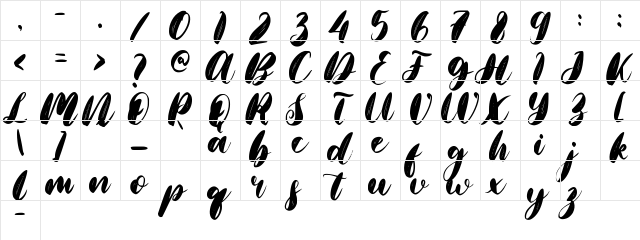
Complete Christmas Blessed Regular glyph index. Displaying only characters natively supported by Christmas Blessed Regular font.
Christmas Blessed is a composed and adaptable typeface that performs quietly and consistently across a wide range of design contexts.